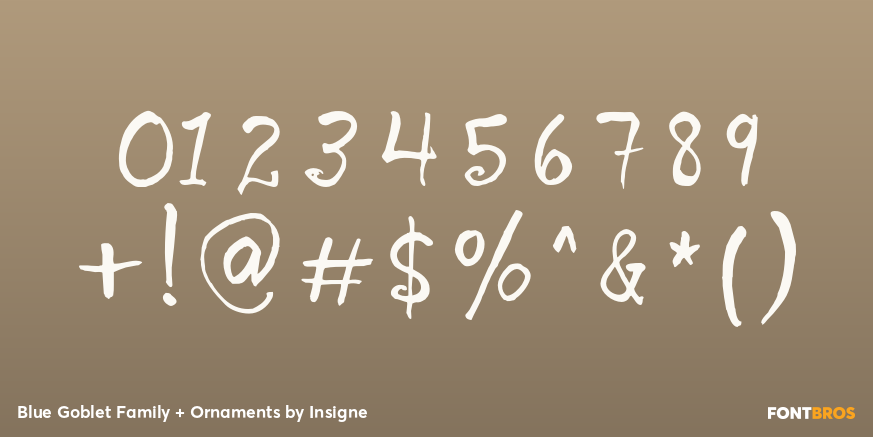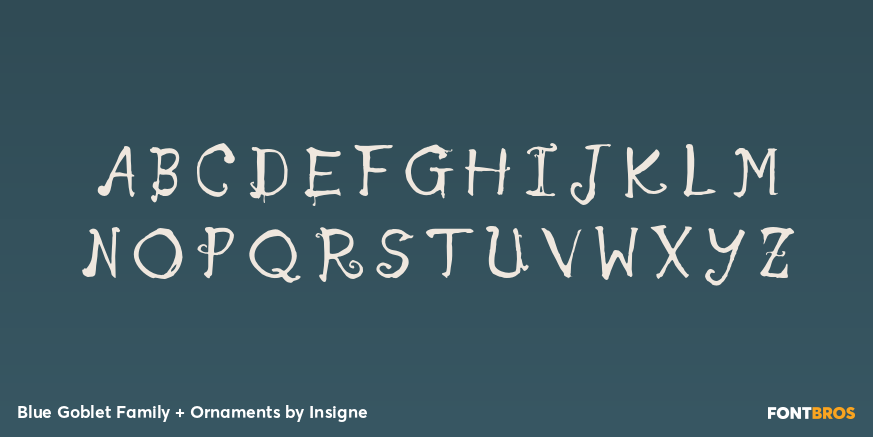
Blue Goblet Family + Ornaments
Font Family by Insigne
Blue Goblet is a script developed for the pending illustrated children's book from Portland Studios, The Blue Goblet. The font has grown to a comprehensive system, with a wide array of ornaments available.
Blue Goblet is usable in a wide range of settings, and includes a full complement of OpenType features and a more playful alternate.
Blue Goblet is a collaboration between Portland Studios and insigne. It was designed by Cory Godbey and digitized by Jeremy Dooley.